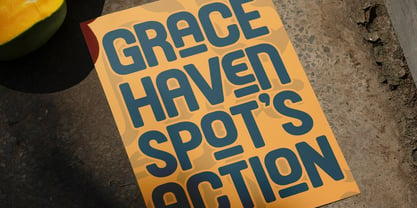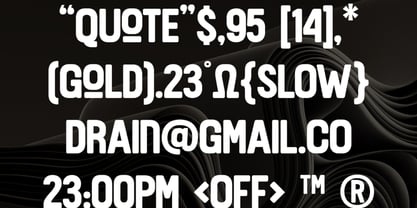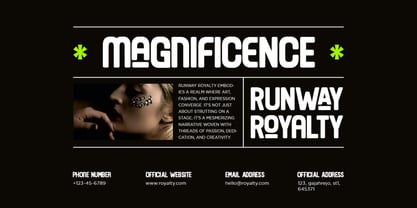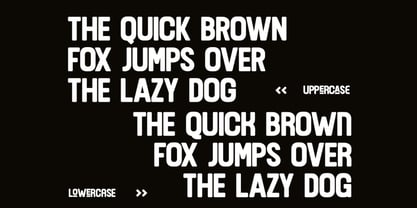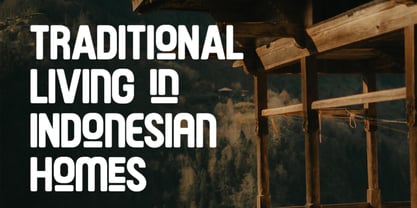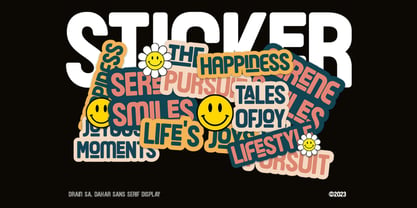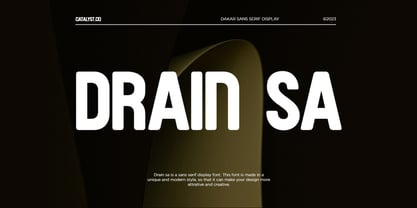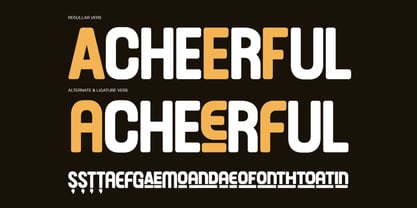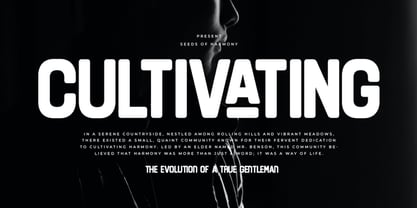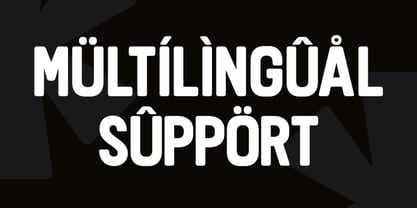
Drain Sa
by Catalystco Std
The Drain Sa Font Family was designed by and published by Catalystco Std. Drain Sa contains 1 styles. More about this family
Drain Sa is a bold sans serif display font with soft rounded corners and a clean geometric structure. It blends modern elegance with urban edge, making it perfect for fashion editorials, branding, posters, and creative projects. This typeface includes uppercase, lowercase, and multilingual support, crafted with a unique, creative shape that adds personality without sacrificing legibility. Drain Sa works beautifully for creative professionals, fashion houses, editorial layouts, modern branding, and visual identity projects. Its sleek rounded form and strong character make it suitable for websites, runway promo materials, minimalist posters, startup logos, and social media content that needs a clean but impactful look.
Foundry: Catalystco Std